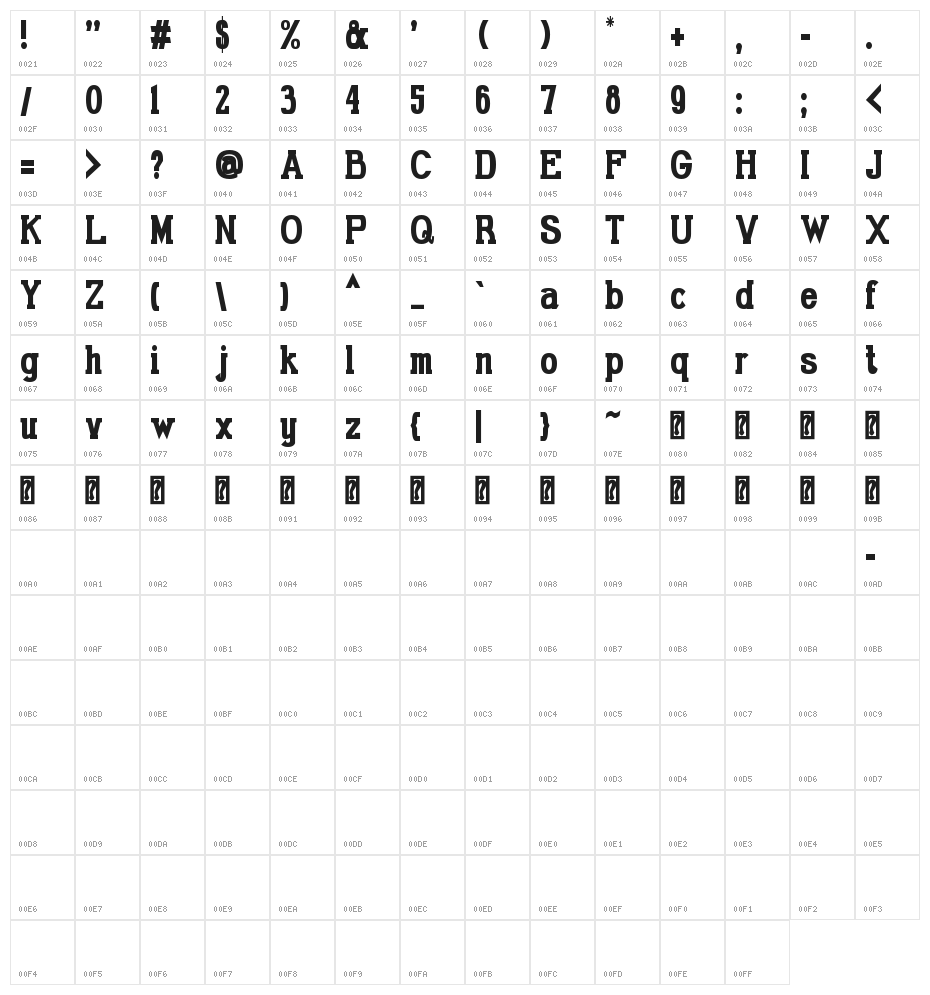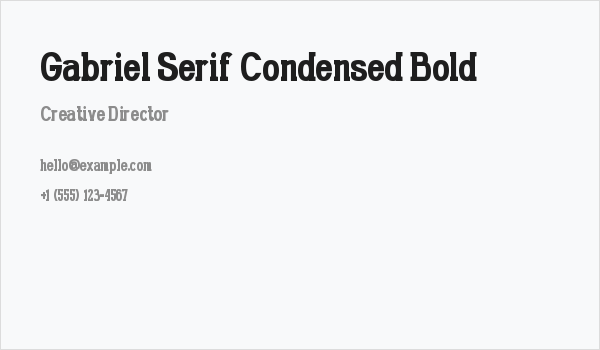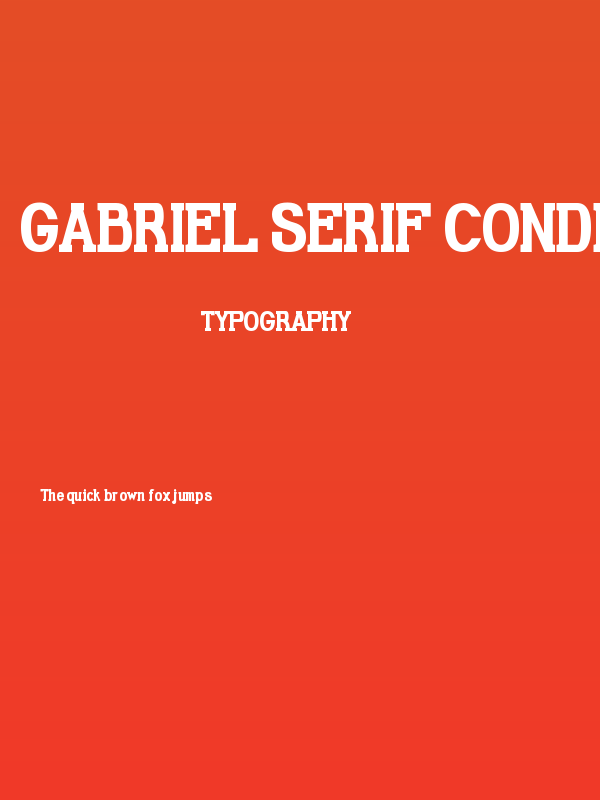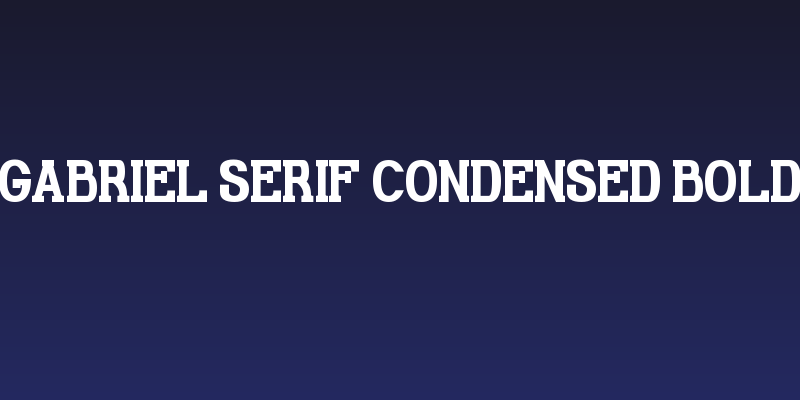
Gabriel Serif Condensed Bold Font
Gabriel Serif Condensed Bold Description
This font features a bold and condensed serif style, characterized by strong, thick strokes and compact letterforms. The serifs are prominent, adding a classic touch to the overall modern design. The uppercase and lowercase letters maintain a consistent weight, ensuring readability while conveying a sense of authority and tradition. The numerals and special characters are designed with the same boldness, making them stand out effectively. This font's condensed nature allows for efficient use of space, making it ideal for headlines and titles where impact is essential.
| Proposed Projects | Ideal for use in headlines, posters, branding, and editorial design where a strong, authoritative presence is desired. |